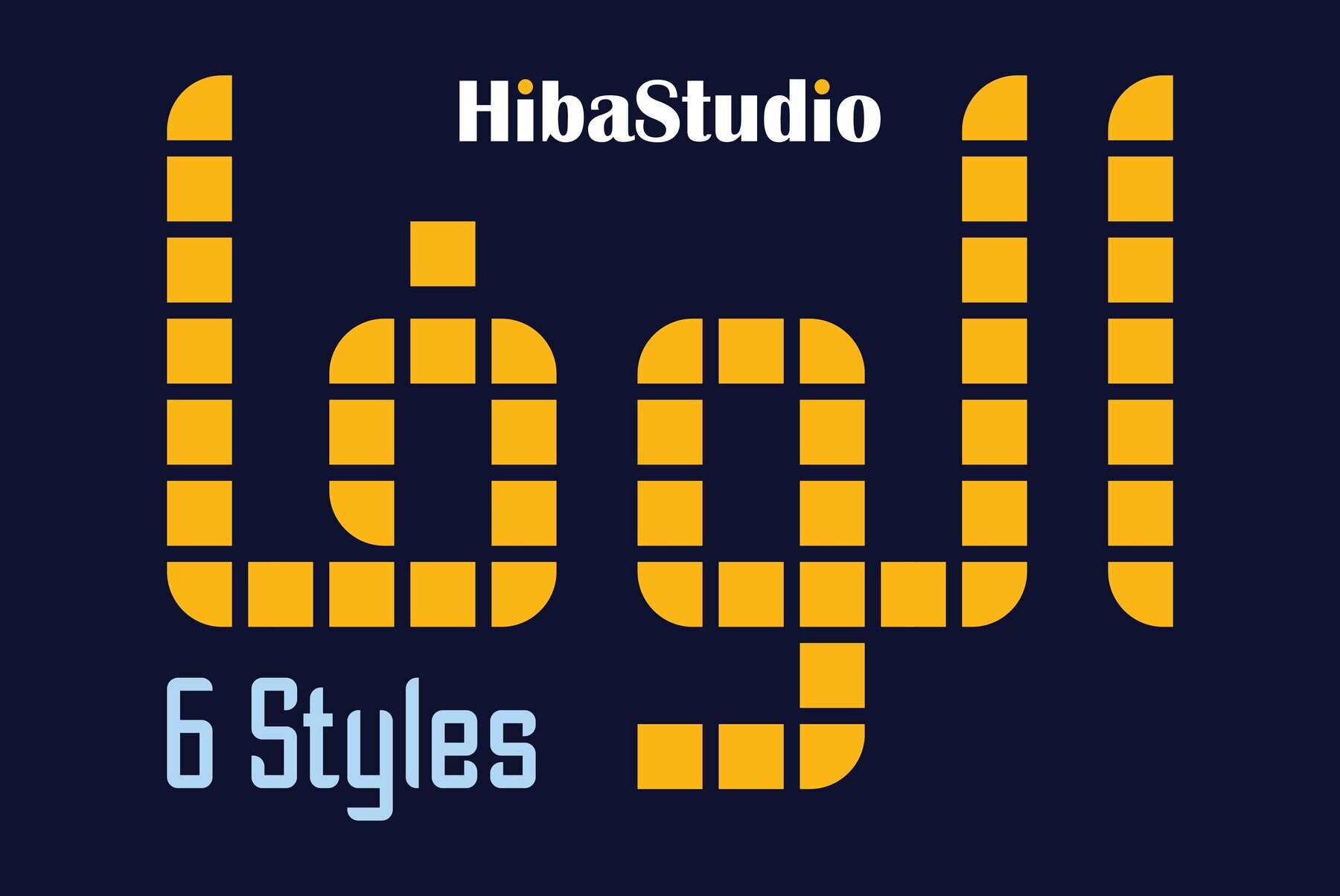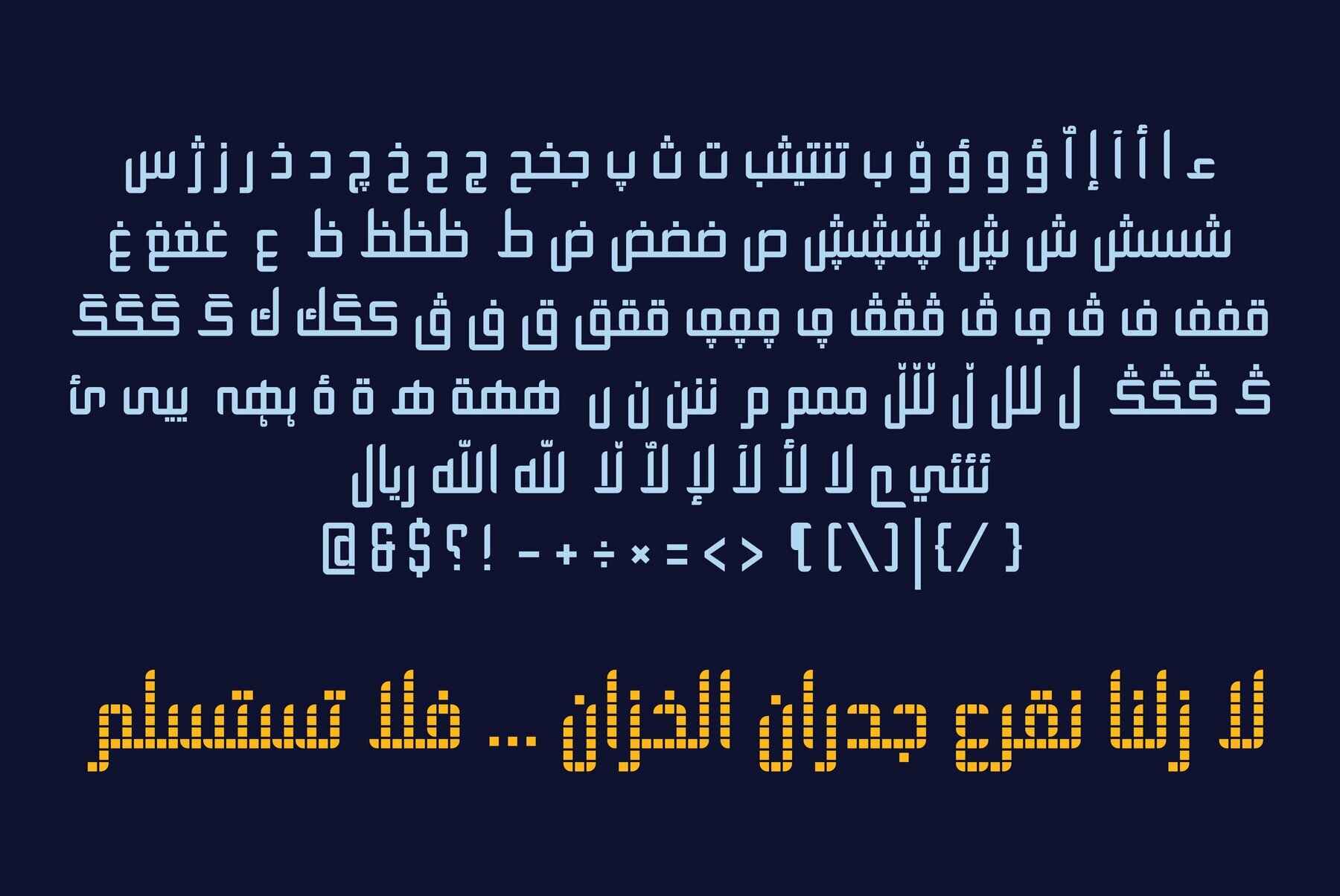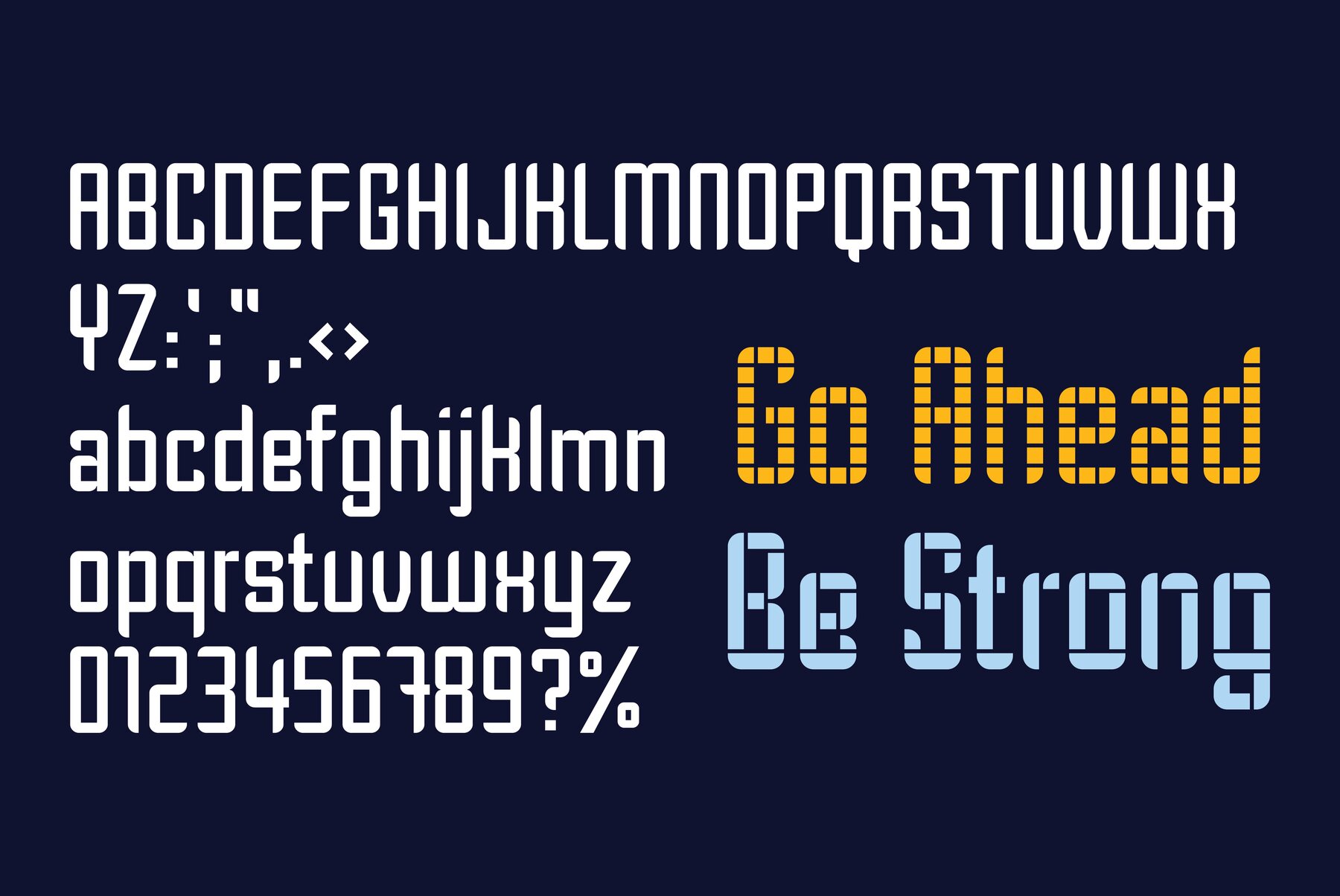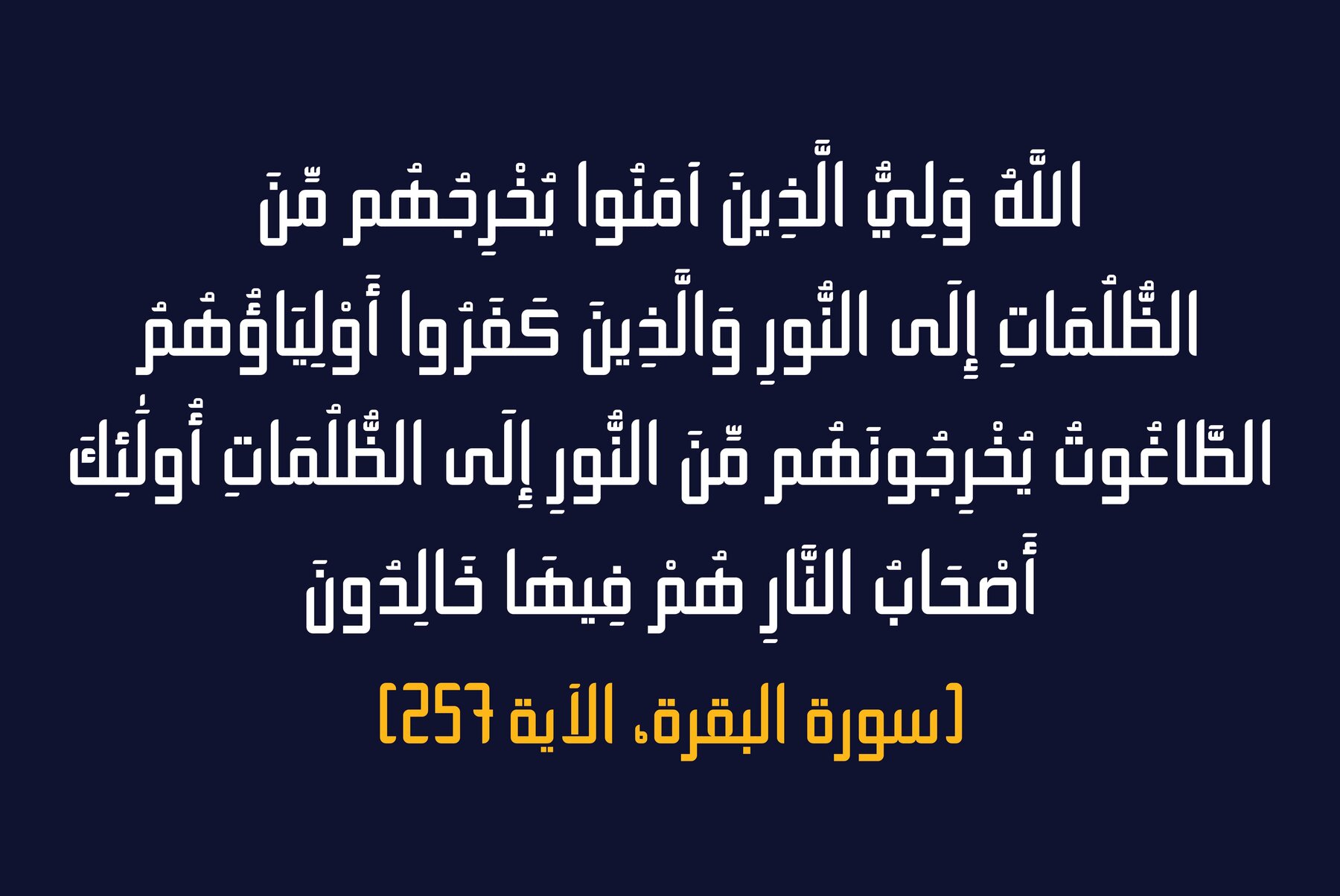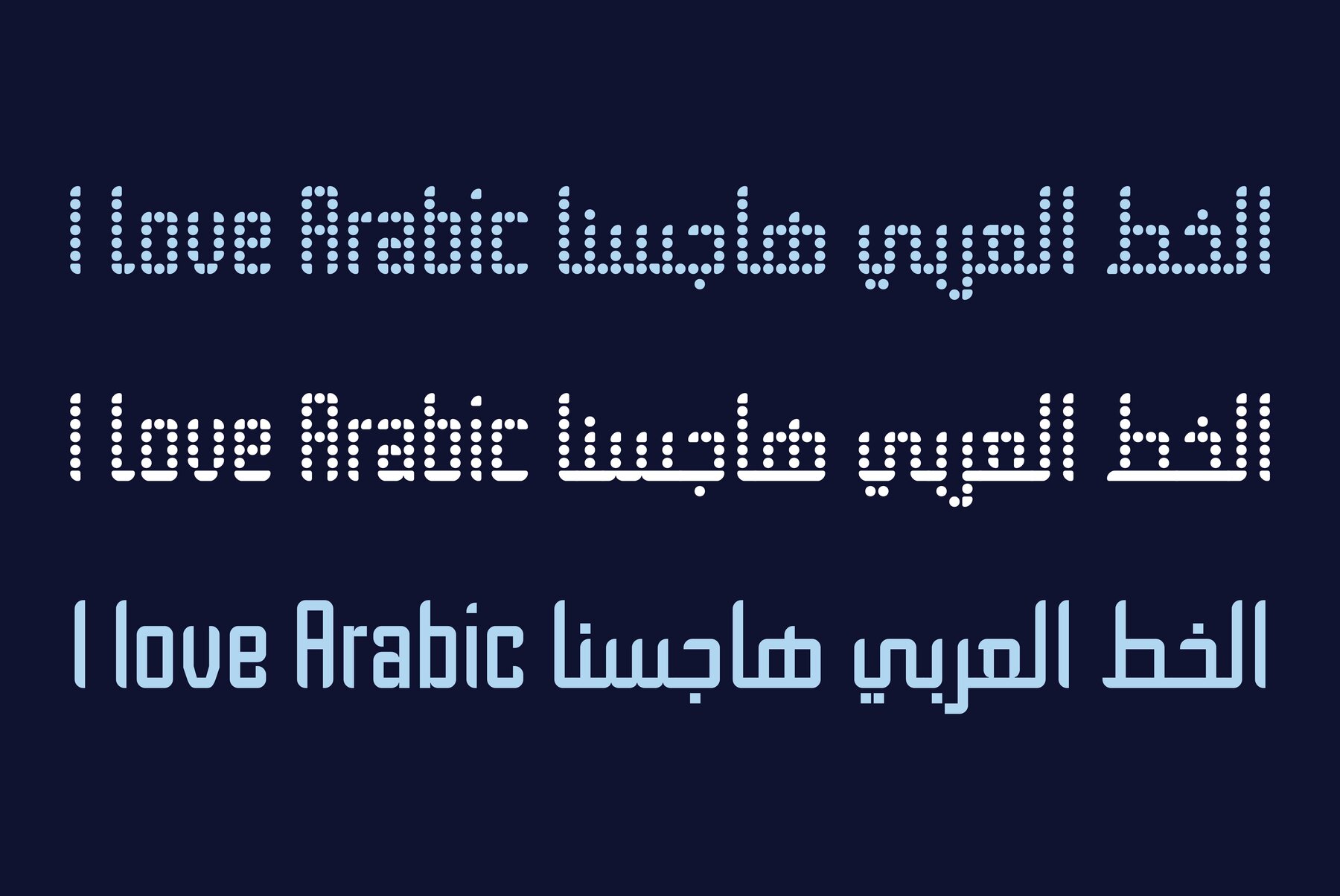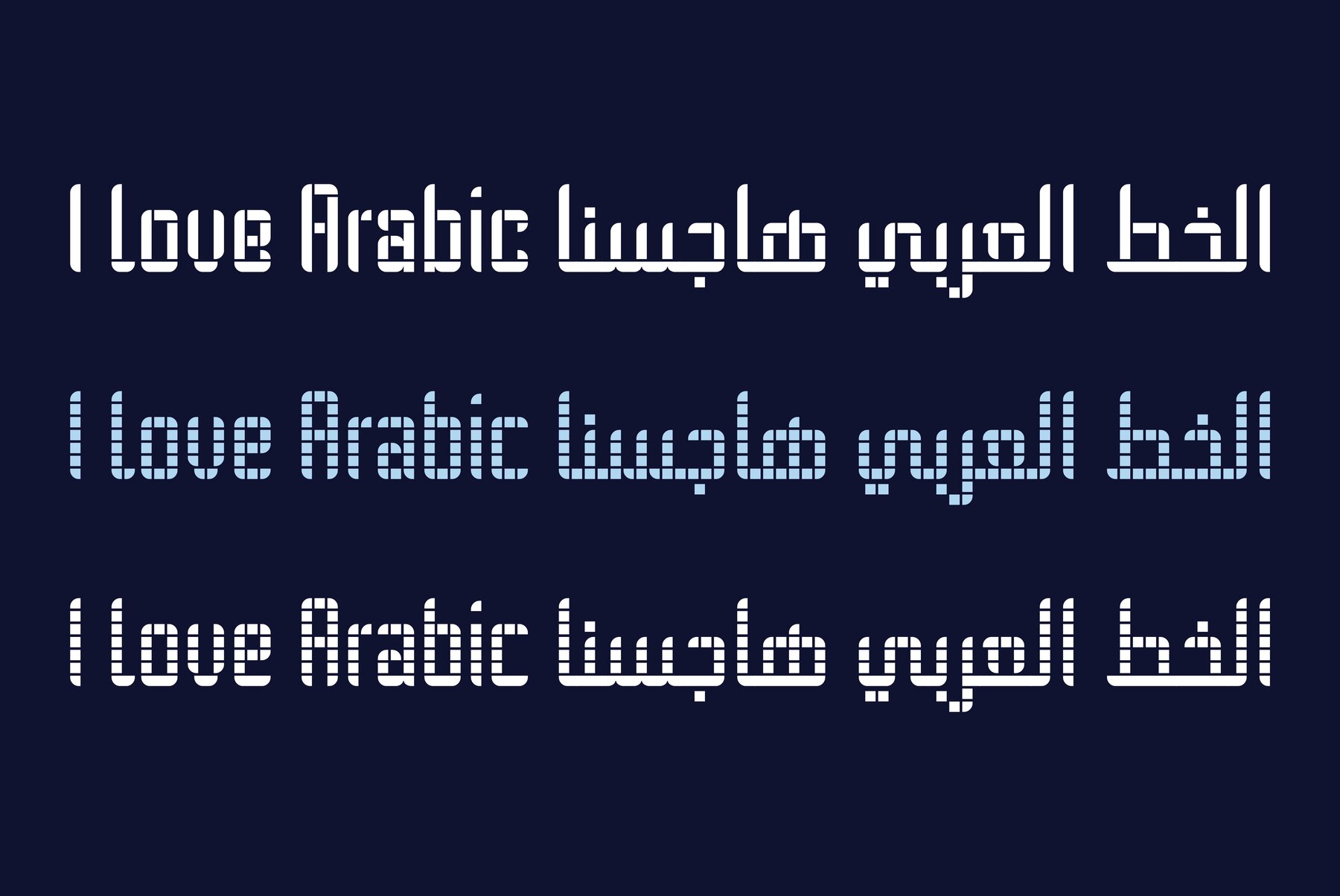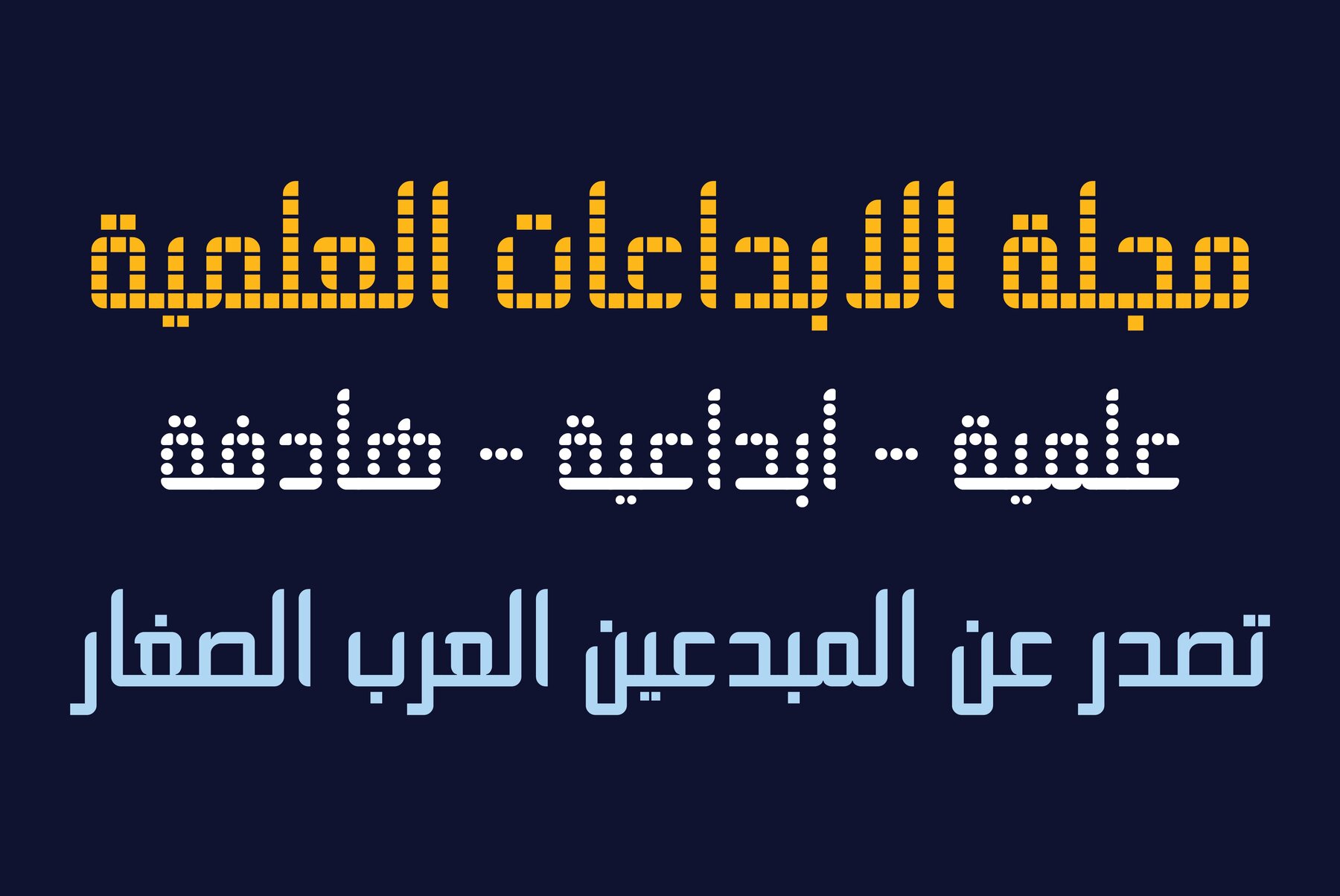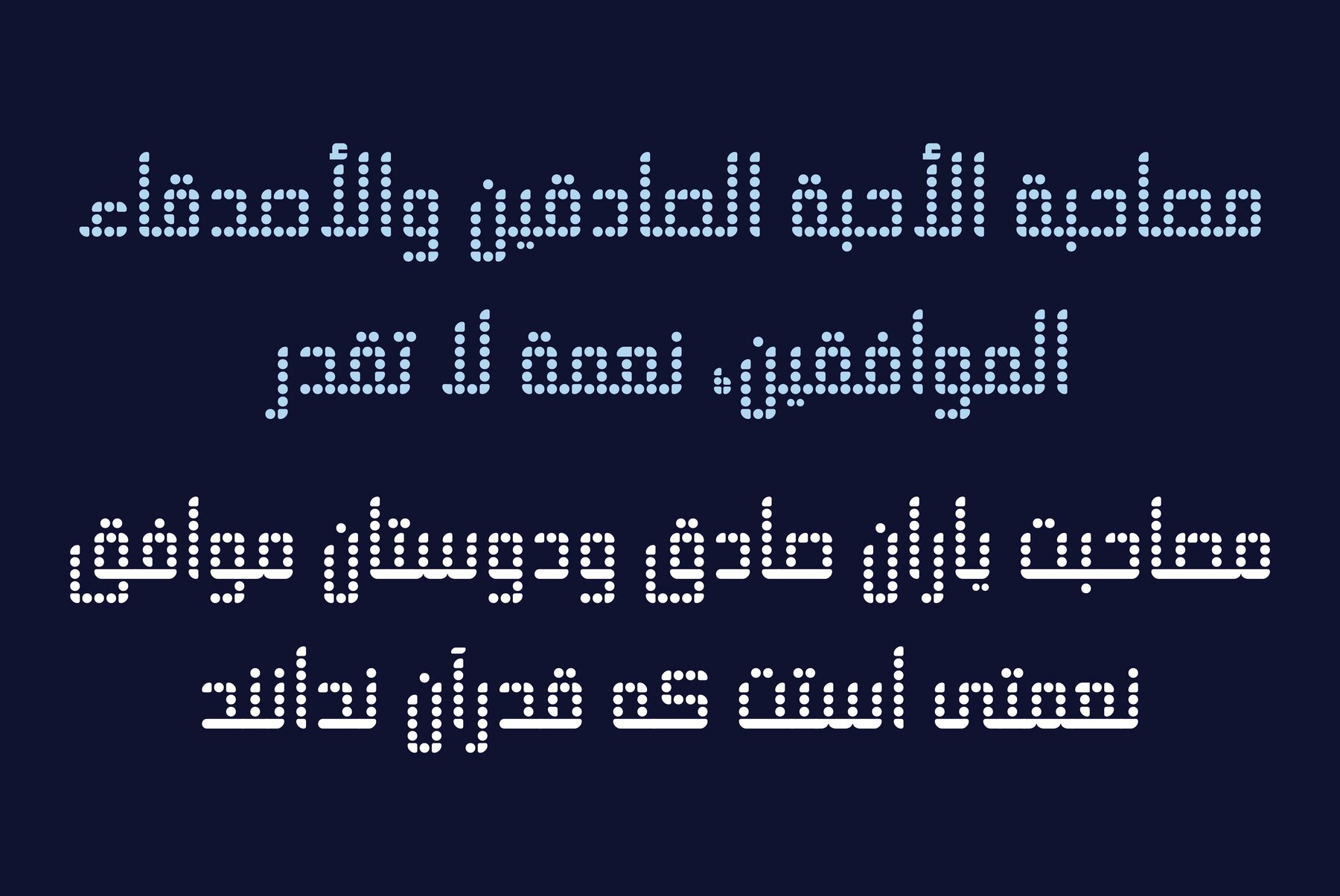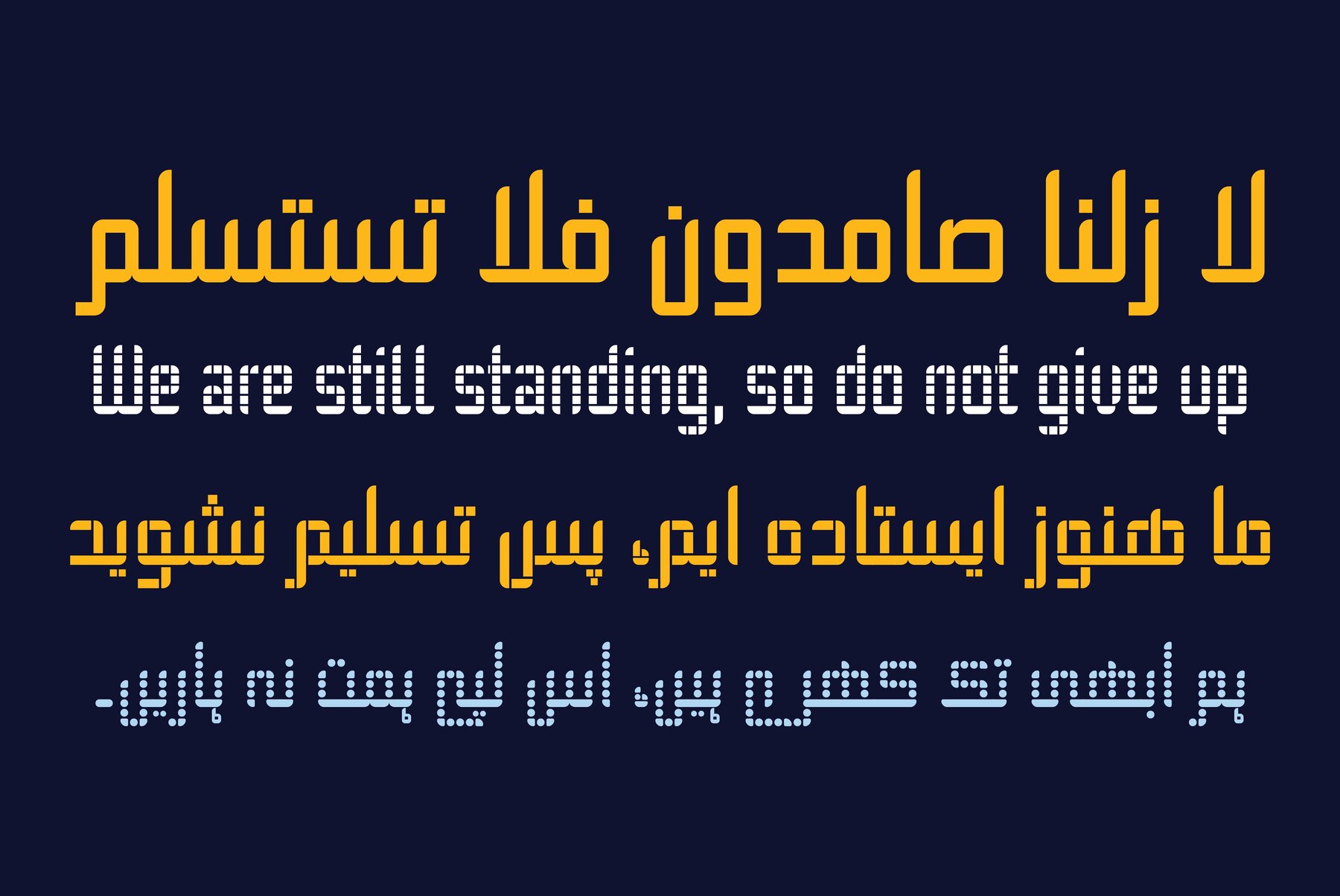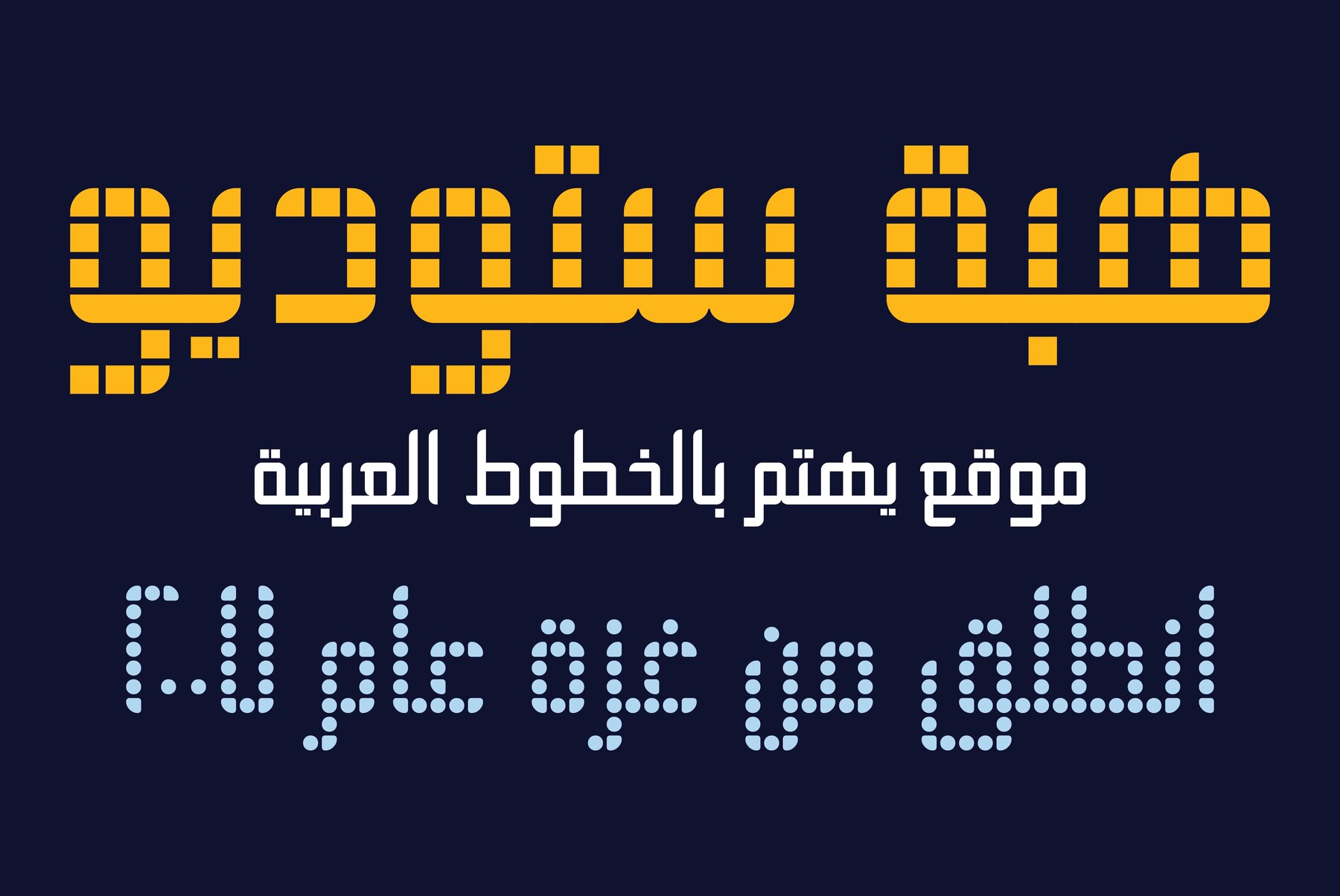
HS AlWafa Font
HS AlWafa by Hibastudio is a striking display typeface that merges the timeless elegance of Square Kufi with a contemporary flair. This typeface boasts precise geometric proportions, creating an appealing blend of tradition and modern design. Its sharp, modular construction imparts a digital and technical allure, perfect for today's design needs. Originating in 2012 with HSAlwafa Squares, this collection has grown into a robust family, now featuring HSAlwafa Regular, HSAlwafa BaseSq, HSAlwafa Stencil, HSAlwafa BaseDot, and HSAlwafa Dots. The HS AlWafa family now encompasses six distinctive styles, providing designers with ample options to achieve both solid and experimental aesthetics. Its versatility extends beyond Arabic, Persian, Urdu, and Kurdish scripts, now supporting Simplified English. This makes it an ideal choice for impactful headlines, visually compelling book covers, and forward-looking logos. Whether you're crafting a creative layout or a contemporary typographic brand, HS AlWafa is designed to deliver.HS AlWafa Typeface: A Modern Tribute to Square Kufi
Versatile Styles for Diverse Applications